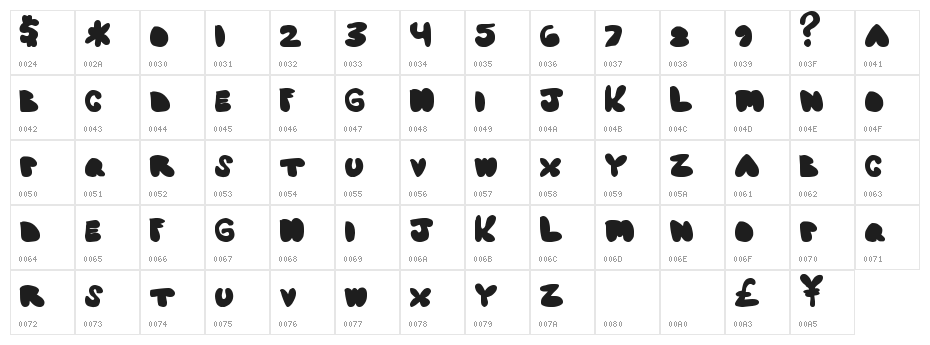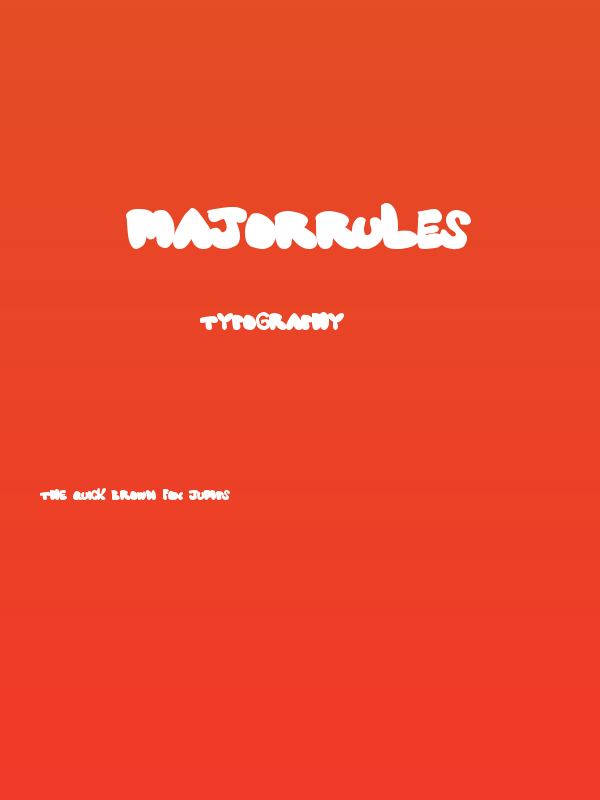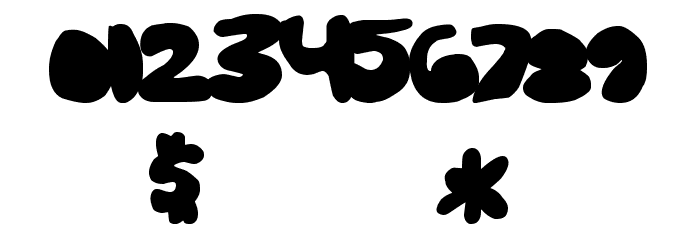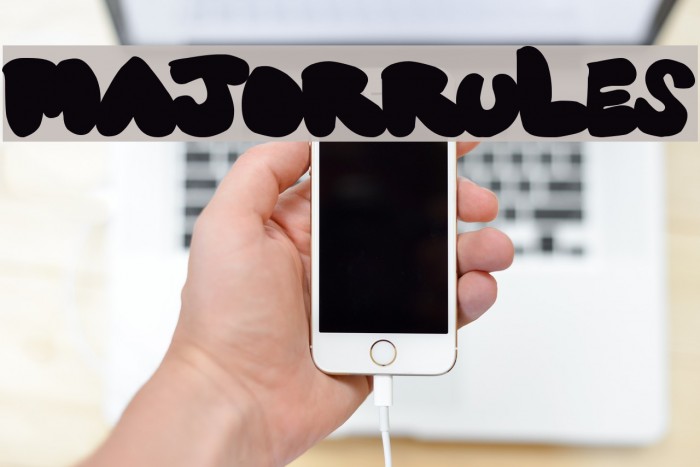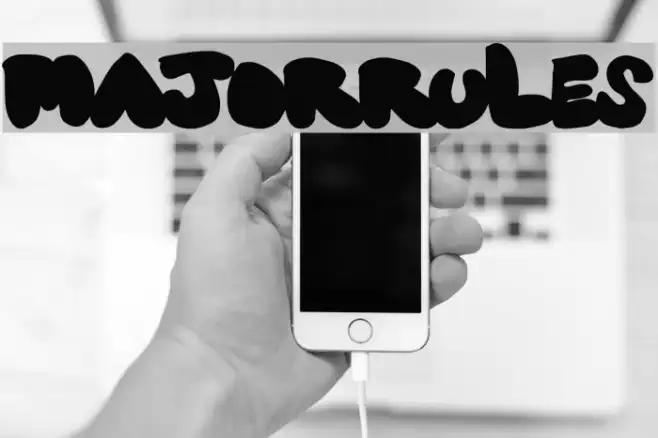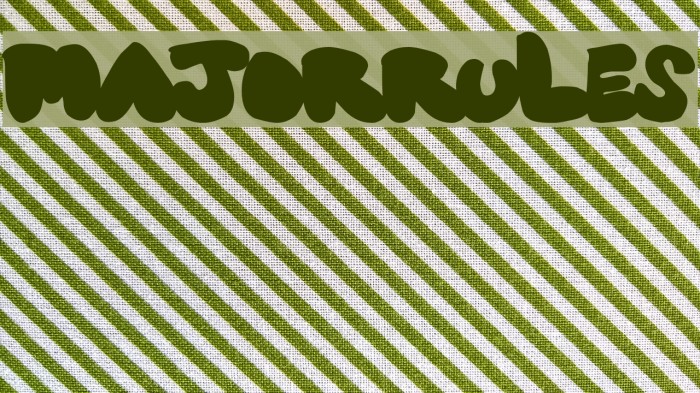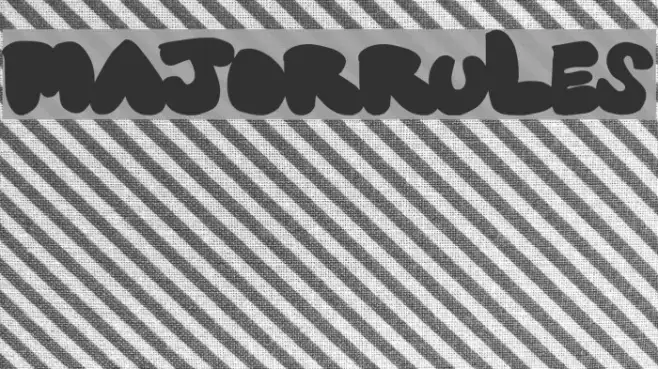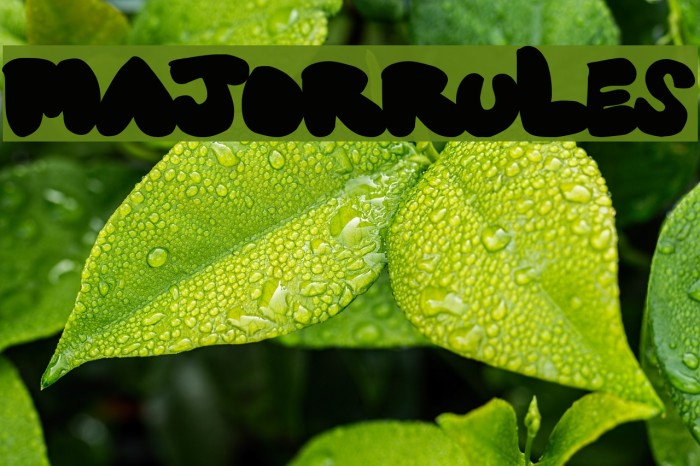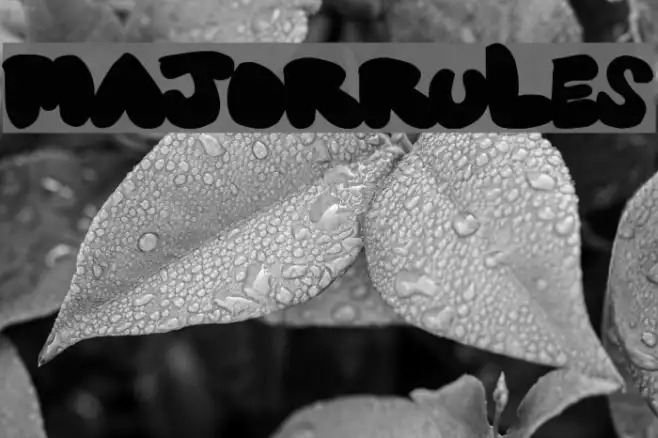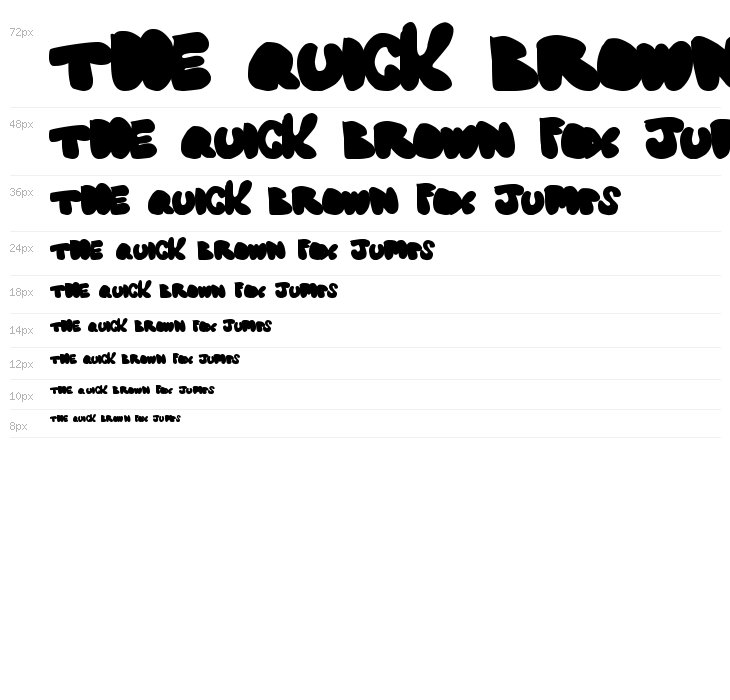
MajorRules Font
MajorRules Description
This font features a bold and playful design with exaggerated, rounded shapes that give it a bubbly and cartoonish appearance. The characters are heavily weighted, creating a strong visual impact. The strokes are consistent in thickness, contributing to a cohesive look across all characters. The font's style is informal and fun, making it suitable for creative and lighthearted projects. The spacing between characters is tight, enhancing the compact and dense feel of the text. This font is ideal for designs that aim to capture attention and convey a sense of whimsy and joy.
| Overall Style | Playful, Cartoonish |
| Proposed Projects | Perfect for children's books, playful branding, party invitations, and comic-style graphics. |